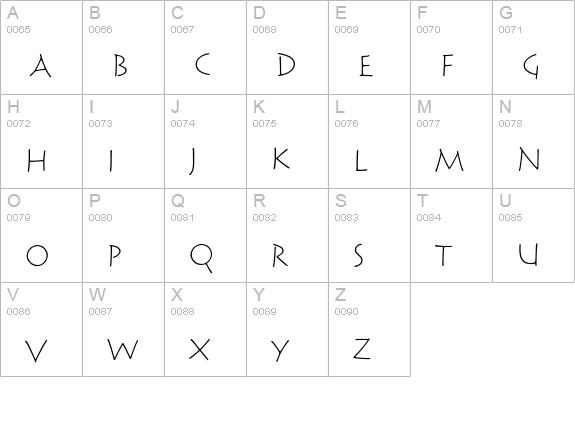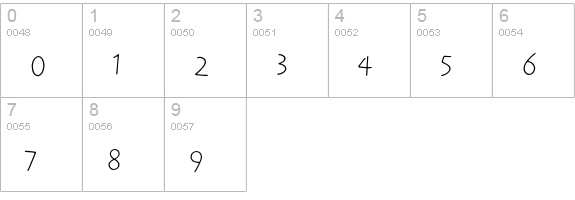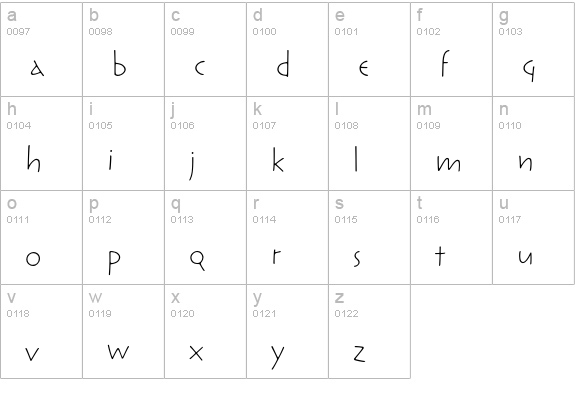
Reliq Std Light Active is a refined, elegant variant in the Reliq typeface family \xE2\x80\x94 well suited to elegant body text, refined sub-headings, and luxury branding.
Reliq Std Light Active, a stunning font that combines elegance and versatility, is the perfect choice for any modern design project. With its clean and crisp lines, this font exudes a sense of sophistication and professionalism. Whether you're creating a logo, designing a website, or crafting a captivating brochure, Reliq Std Light Active will effortlessly elevate your work to new heights. What sets Reliq Std Light Active apart is not just its exceptional design, but also its incredible flexibility. This font is ideal for both print and digital applications, making it an essential tool for graphic designers, web developers, and anyone looking to make a lasting impression. Its light weight adds a touch of delicacy and refinement, making it particularly suitable for projects that require a subtle yet impactful aesthetic. But wait, there's more! The best part about Reliq Std Light Active is that it is completely free. Yes, you read that right – this remarkable font is freely available to download at FontsMarket.com. This means that you can enhance your designs without having to worry about breaking the bank. We believe that great design should be accessible to all, and with Reliq Std Light Active, that vision becomes a reality. So why wait? Don't miss out on the opportunity to enhance your creative work with the exquisite beauty of Reliq Std Light Active. Download this font today from FontsMarket.com and unleash your design potential. With Reliq Std Light Active, the possibilities are endless, and your creations will shine brighter than ever before.